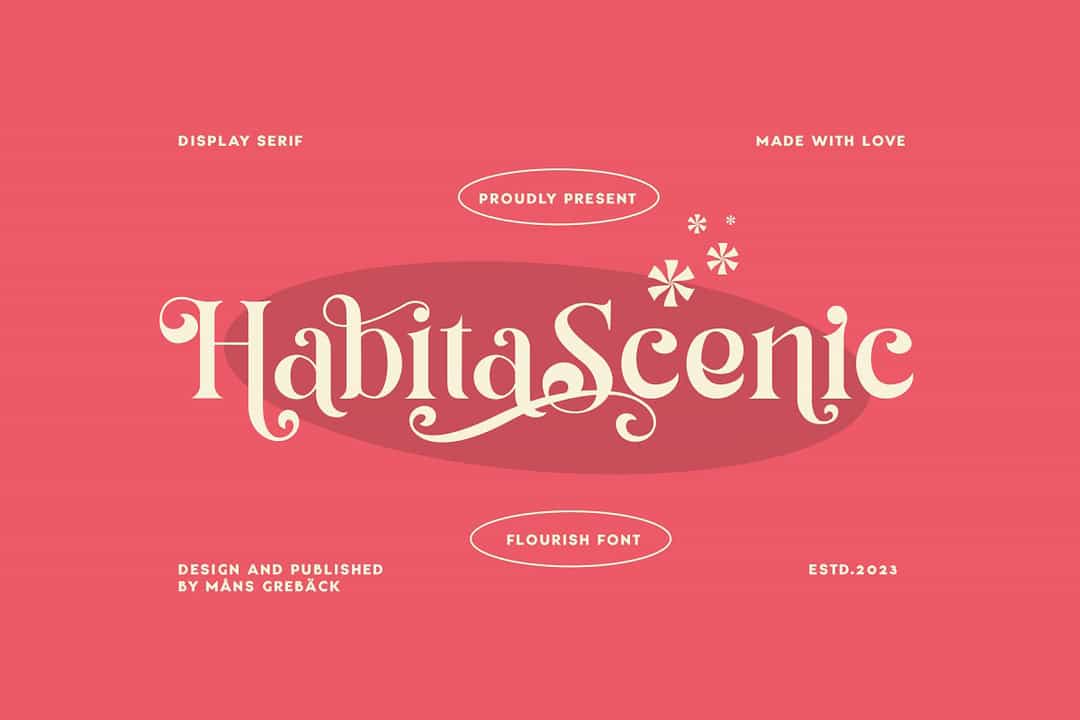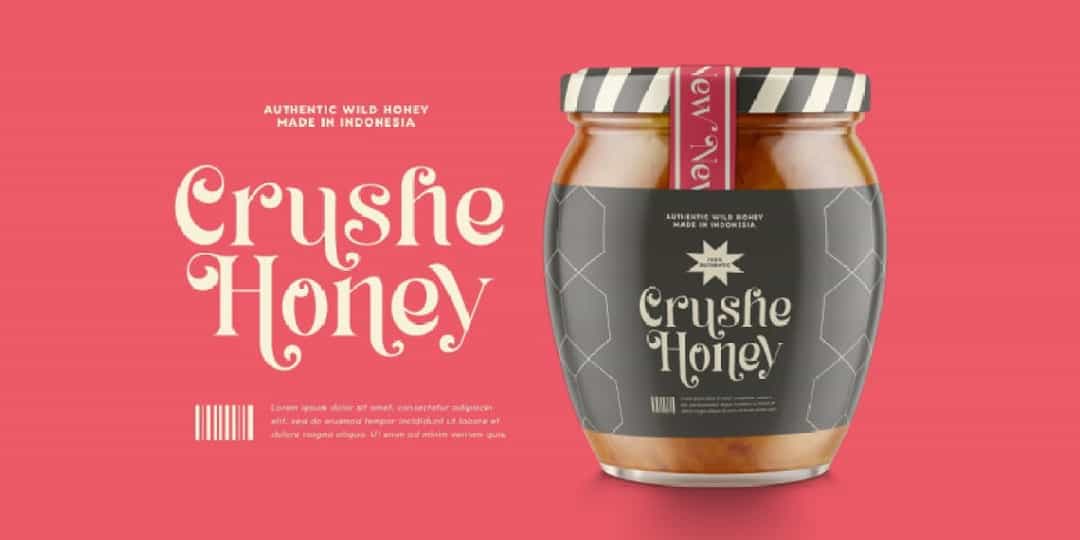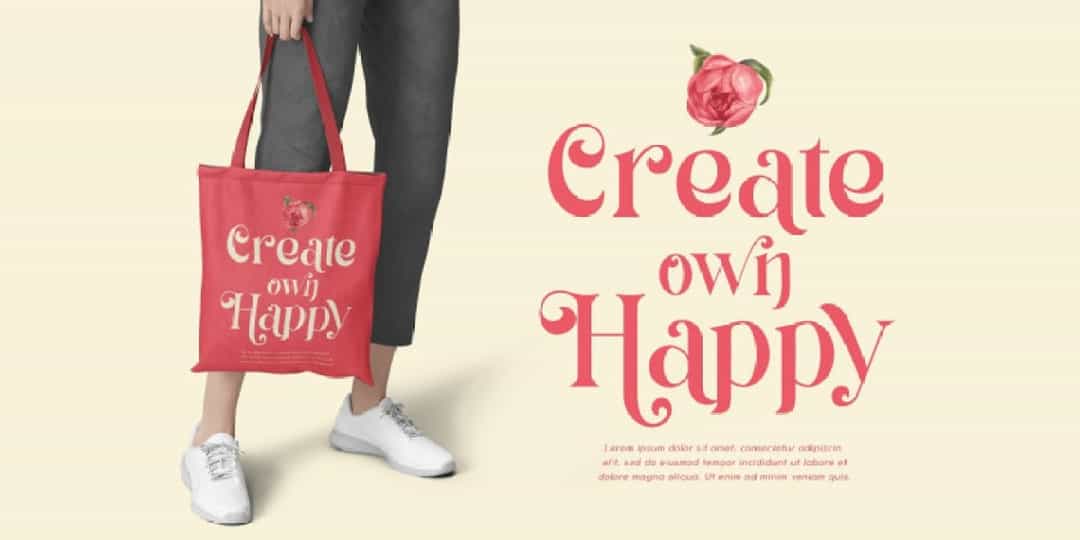
Habita Scenic is an elegant serif font created by Mans Greback in 2023 that adds feminine charm and sophistication to any project. Featuring high contrast and retro aesthetic, Habita Scenic makes for the ideal solution when adding coolness into designs – it works beautifully as headlines, logos or other creative endeavors!